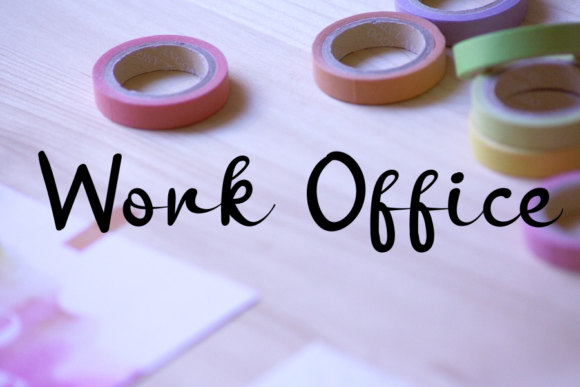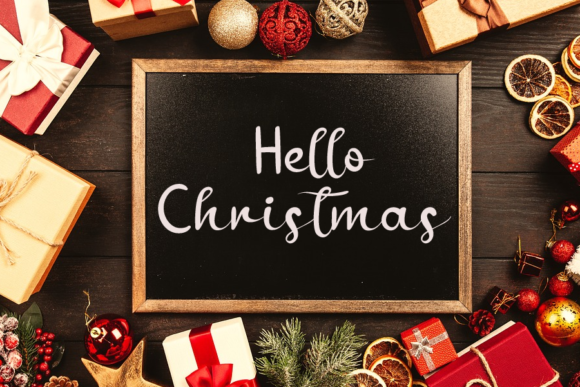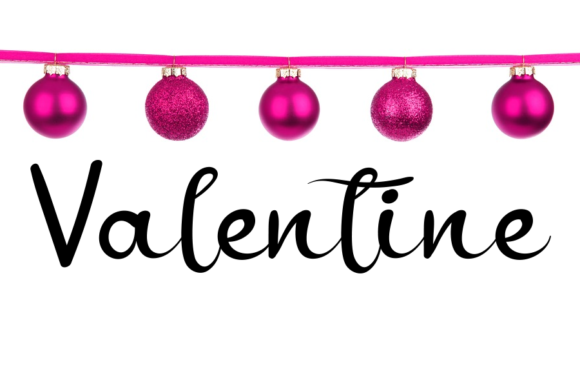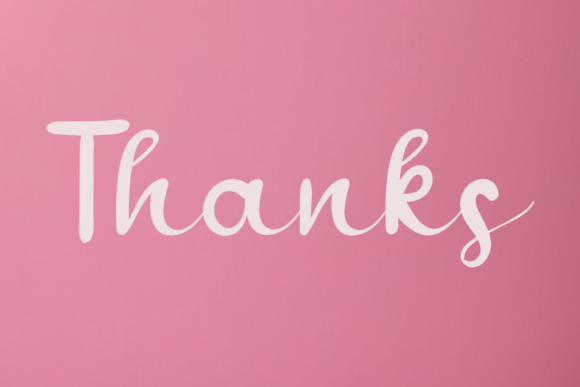
Wonderful Font
About Wonderful Font
Wonderful is a playful handwritten font. Its flexibility and neat style will brighten up each of your designs. Have fun with this cool font and explore its endless variations.